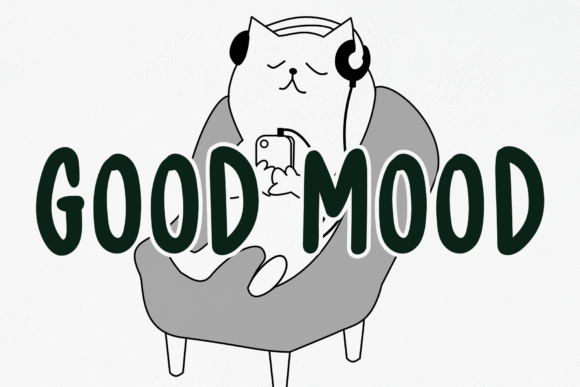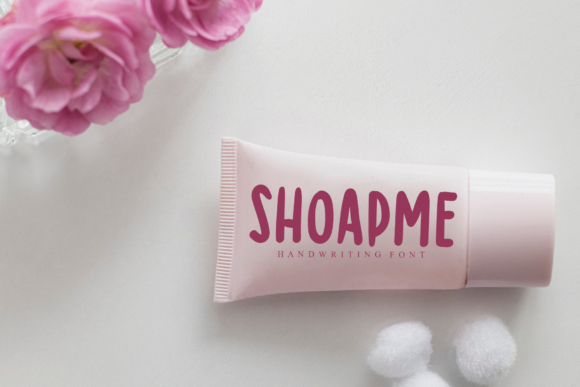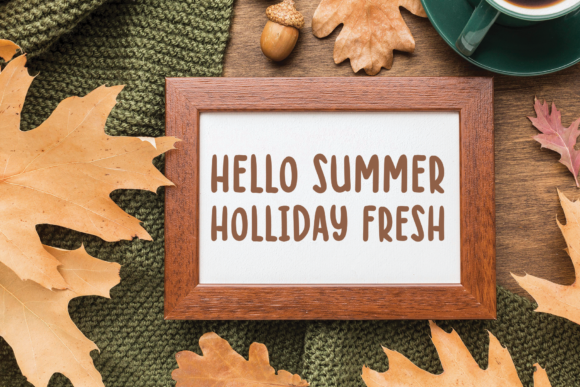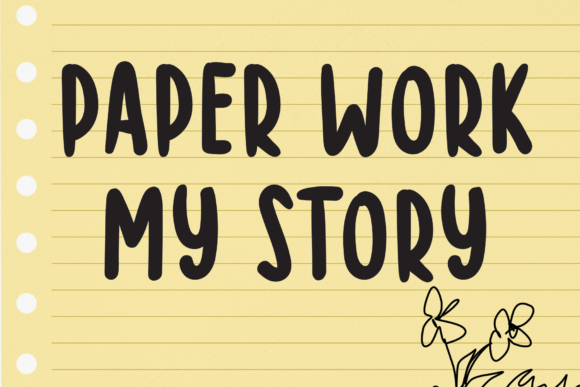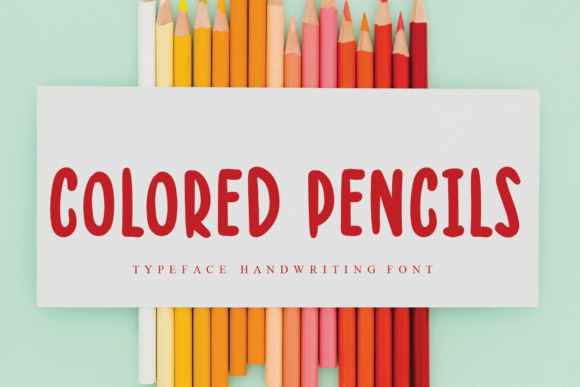
Unlock the Secret to Spreading Joy with Good Mood Font
You know that moment when you’re brainstorming ideas for a new design project, and suddenly, a spark of creativity hits you? The words start flowing, and you envision a beautiful, happy, and uplifting visual representation that captures the essence of the message. That’s exactly what the Good Mood Font is designed to help you achieve.
This casual and friendly handwritten font is more than just a style – it’s an emotion. It’s the feeling you get when you see a beautiful sunset, or when you receive a heartfelt letter from a loved one. The Good Mood Font is here to bring that same warmth and joy to your designs, making it the perfect addition to any project that requires a touch of personality and charm.
Whether you’re a seasoned designer or just starting out, the Good Mood Font is an invaluable asset to have in your toolkit. Its incredibly versatile style makes it perfect for a wide range of applications, from logos and branding to social media graphics and more. So why settle for a generic font when you can spread joy and happiness with the Good Mood Font?
Good Mood Font Key Features
- Unique Characteristics: The font features a unique blend of rounded and geometric shapes, creating a friendly and approachable feel that’s perfect for branding and marketing materials.
Designer Review: Good Mood Font
At first glance, the Good Mood Font is a charming and whimsical typeface that’s sure to put a smile on your face. I appreciate its playful, handwritten feel, which is perfect for adding a touch of personality to designs.
- Unique character set: The Good Mood Font has a wide range of characters, including special symbols and punctuation marks that add to its whimsical charm.
- Highly legible: Despite its handwritten feel, the font is surprisingly easy to read, making it suitable for body text as well as headlines.
- Customizable: The font comes in a variety of weights and styles, allowing designers to tailor it to their specific needs.
- Limited scalability: While the font looks great at smaller sizes, it can become distorted and lose its charm when scaled up.
- Not suitable for formal designs: The Good Mood Font’s playful feel may not be the best choice for formal or professional designs, where a more serious tone is required.
Overall, I think the Good Mood Font is a great addition to any designer’s toolkit. While it may have some limitations, its unique charm and versatility make it a great choice for a wide range of projects.
Tips for Getting the Most Out of Good Mood Font
Use Good Mood Font to create visually appealing headings and titles.
Combine Good Mood Font with other fonts to create a unique and eye-catching design.
Experiment with different font sizes and colors to emphasize important information.
Good Mood Font is ideal for:
Creating eye-catching social media graphics.
Designing engaging presentations and reports.
Adding a touch of personality to blog posts and articles.